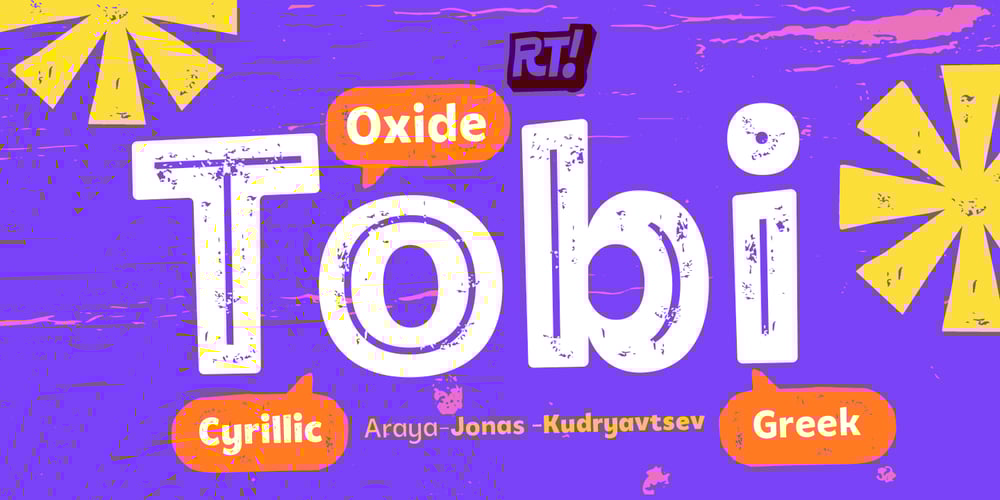
Tobi Oxide
Tobi Oxide font
Tobi Oxide Font Family was designed by Andrey Kudryavtsev, Rodrigo Araya Salas, Franco Jonas Hernández and published by RodrigoTypo. Tobi Oxide contains 4 styles and family package options. “Tobi Oxide” is a unique and versatile typeface that combines rough elements with an alternative version that includes Greek and Cyrillic characters.